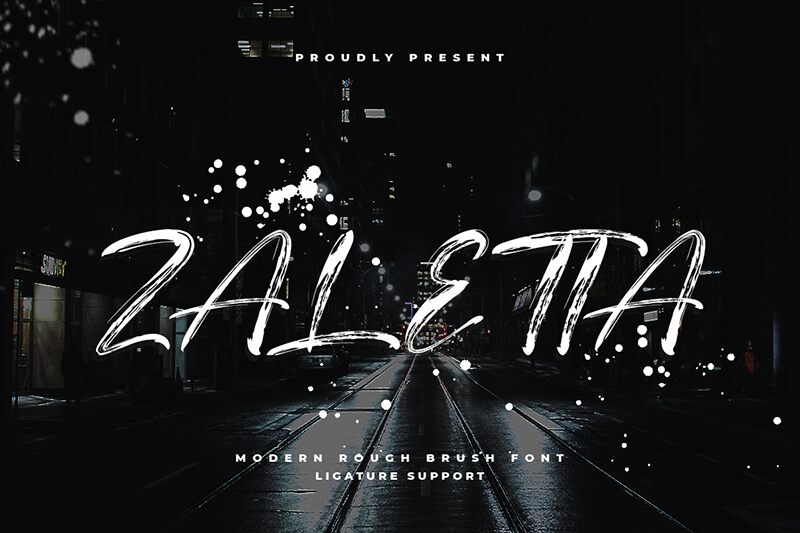
Zaletta font by Kong Font is a brush script typeface with an expressive, textured appearance. It combines artistic flair with casual elegance, giving it a distinctive character. Each stroke is designed to mimic the natural flow of handmade brush lettering, making this free font one which blends seamlessly into artistic projects.
Zaletta is great for logos, packaging, branding projects, headlines, titles, posters letters and print designs. It’s also great for wedding invitations and events invitations in general like Christmas cards or even Halloween cards. In digital media this makes a perfect choice for blogs and social media posts as well as story highlight covers on Instagram.